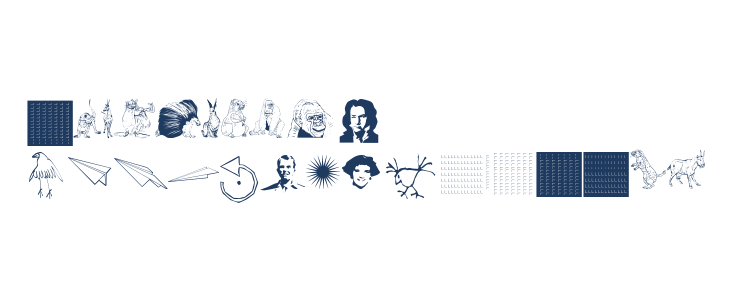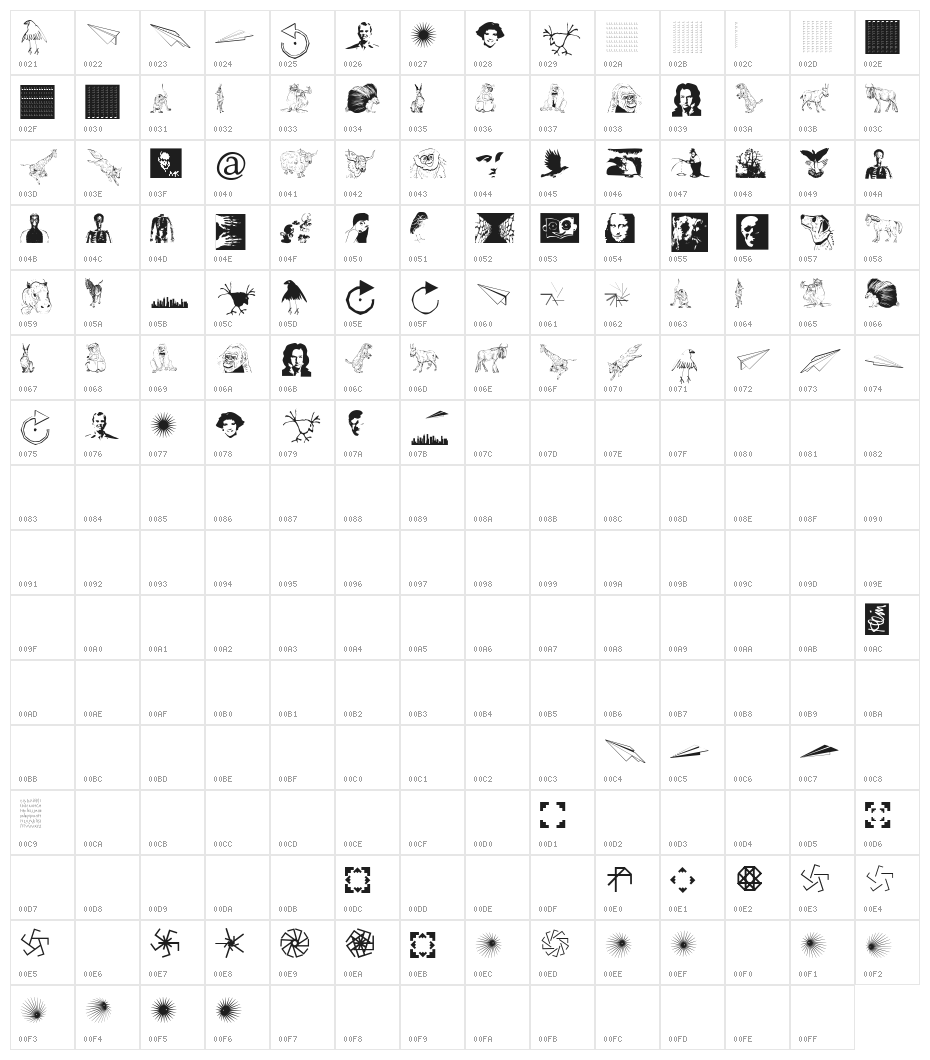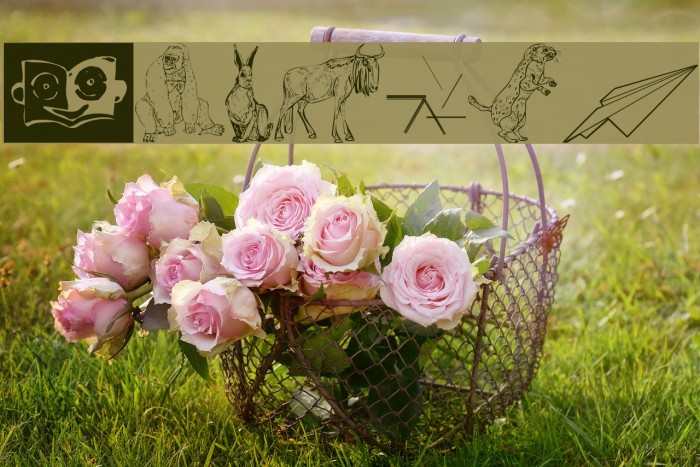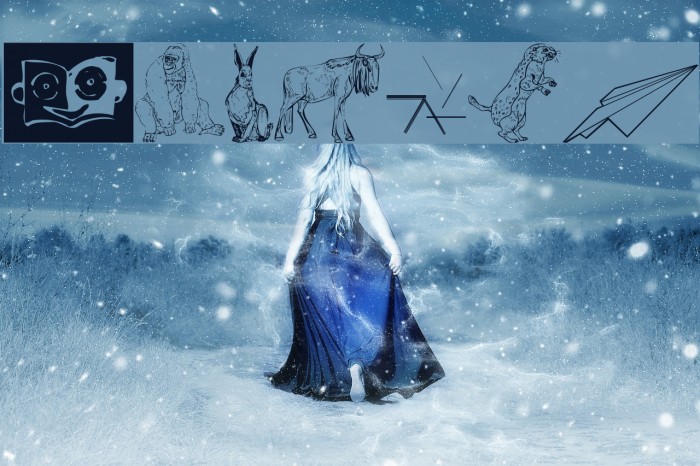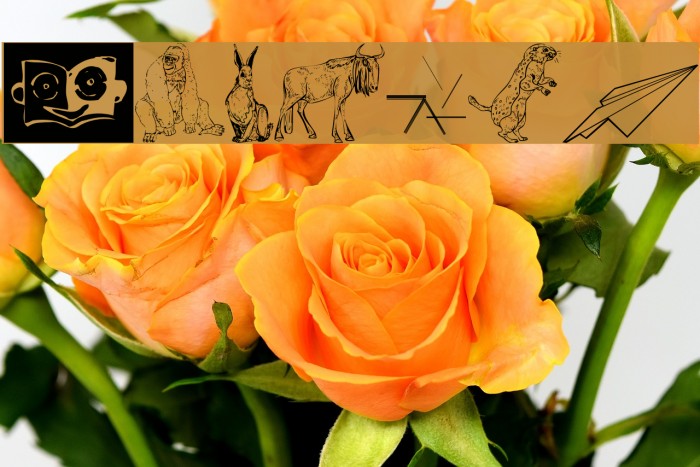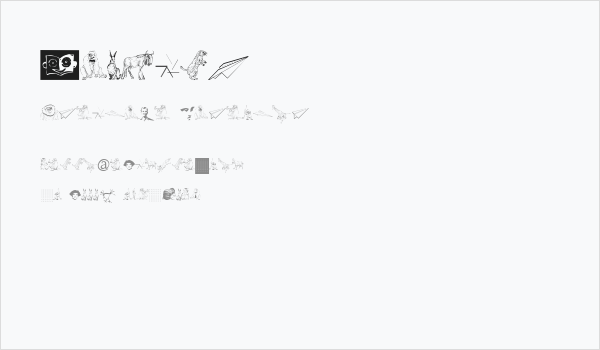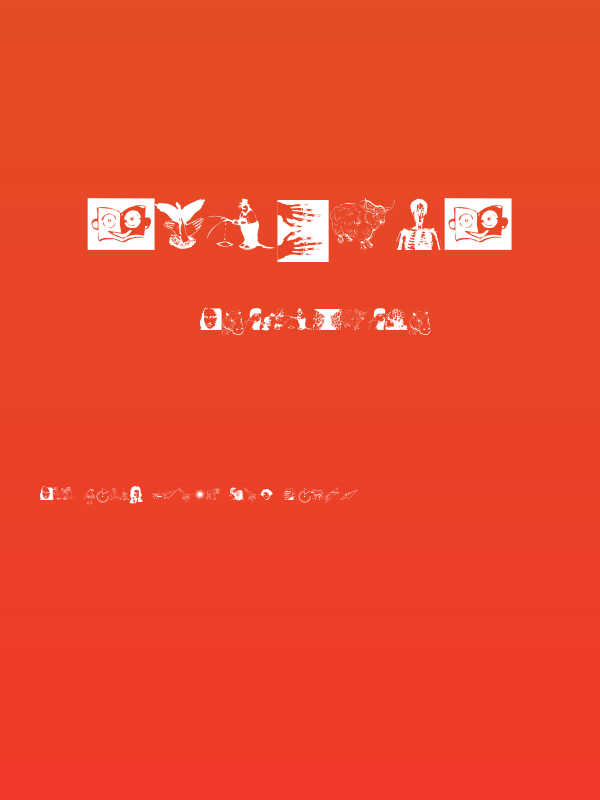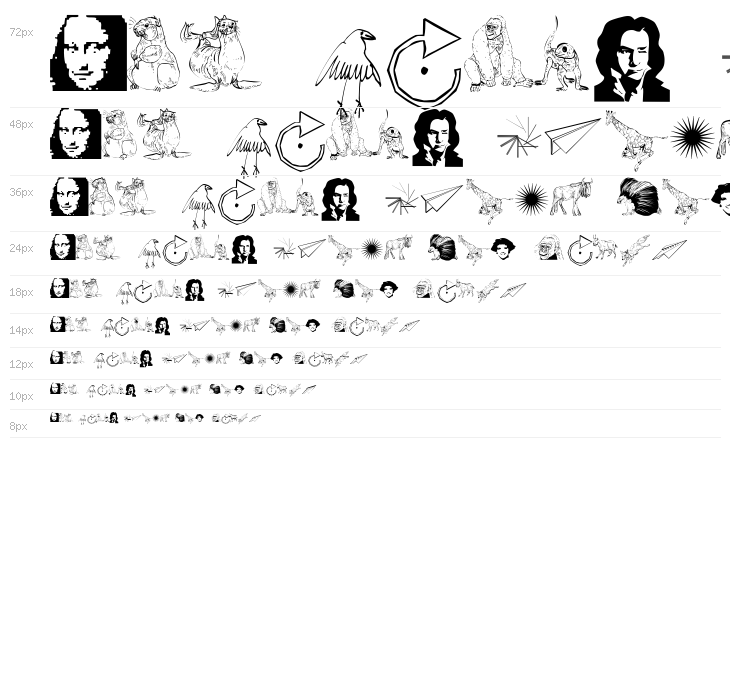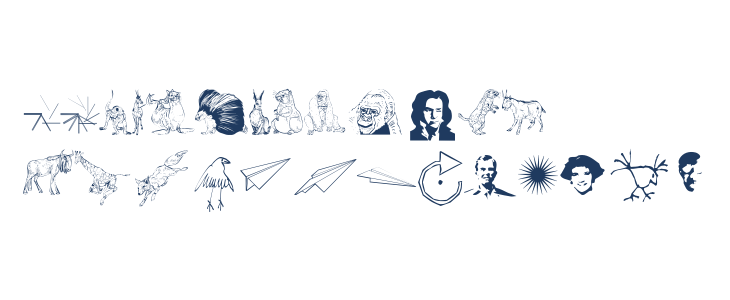
Signals Font
Signals Description
A decorative dingbat font featuring a diverse collection of detailed black-and-white illustrations, including animals, human portraits, abstract symbols, and various objects. The glyphs are highly illustrative and vary in complexity, with some enclosed in squares and others freeform. The style is eclectic and artistic, with a hand-drawn, sketch-like quality.
Overall StyleDecorative, Artistic, Eclectic
Use CaseIllustrative elements, icons, creative headlines, visual accents.
Proposed ProjectsPosters, album covers, educational materials, creative branding, art projects, zines.